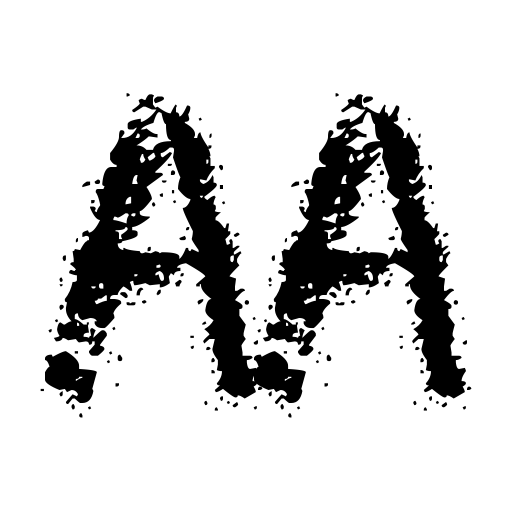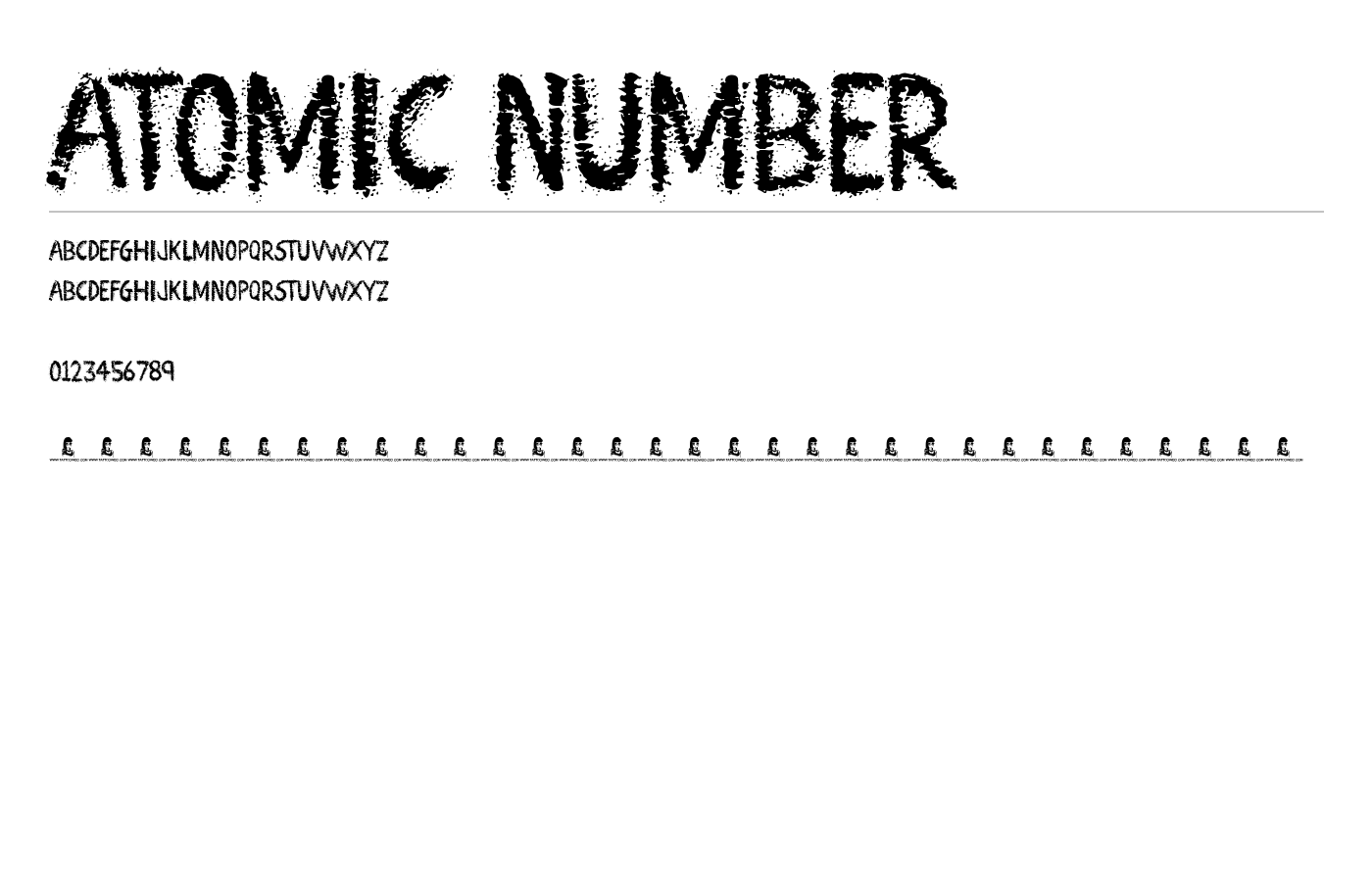
Atomic Number Font is an edgy, distressed sans serif typeface with a rough, textured appearance that evokes a feeling of energy and rawness. Its irregular edges and granular details make it perfect for bold headlines, posters, or creative projects seeking an urban, grunge, or industrial vibe. This font works well in designs that need a strong, eye-catching impact with a unique, hand-crafted aesthetic.
Atomic Number Font